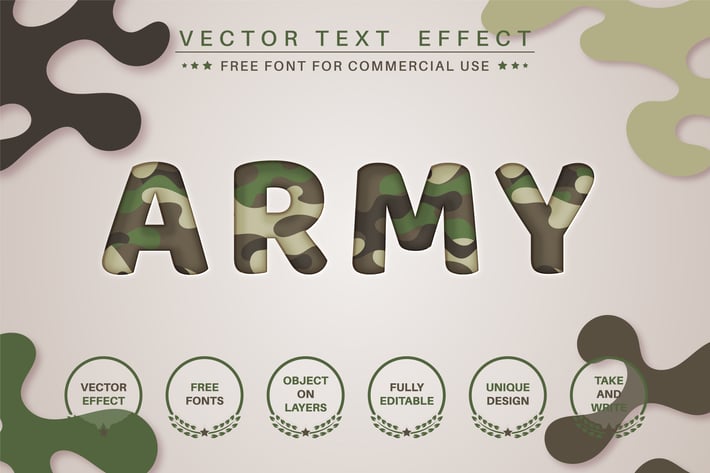
Paper military - editable text effect, font style
Hello! I'm happy to introduce my new text effect "Cut paper military". Just write your word and the effect will apply! Be as creative as you like to be in expressing yourself using this unique “Cut paper military”. Effect is perfect for any project that needs a unique handy touch whatever else your imagination leads you to!